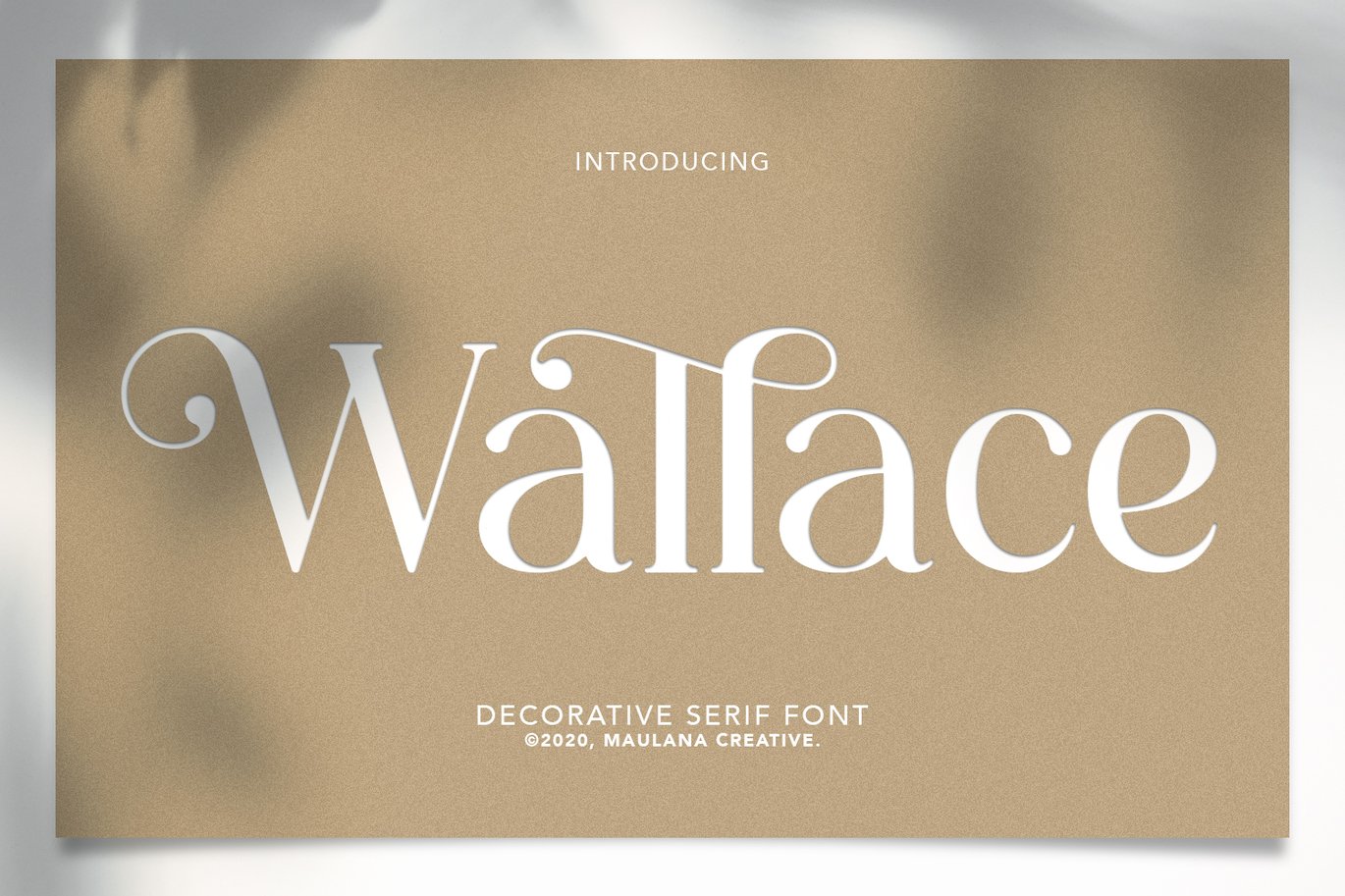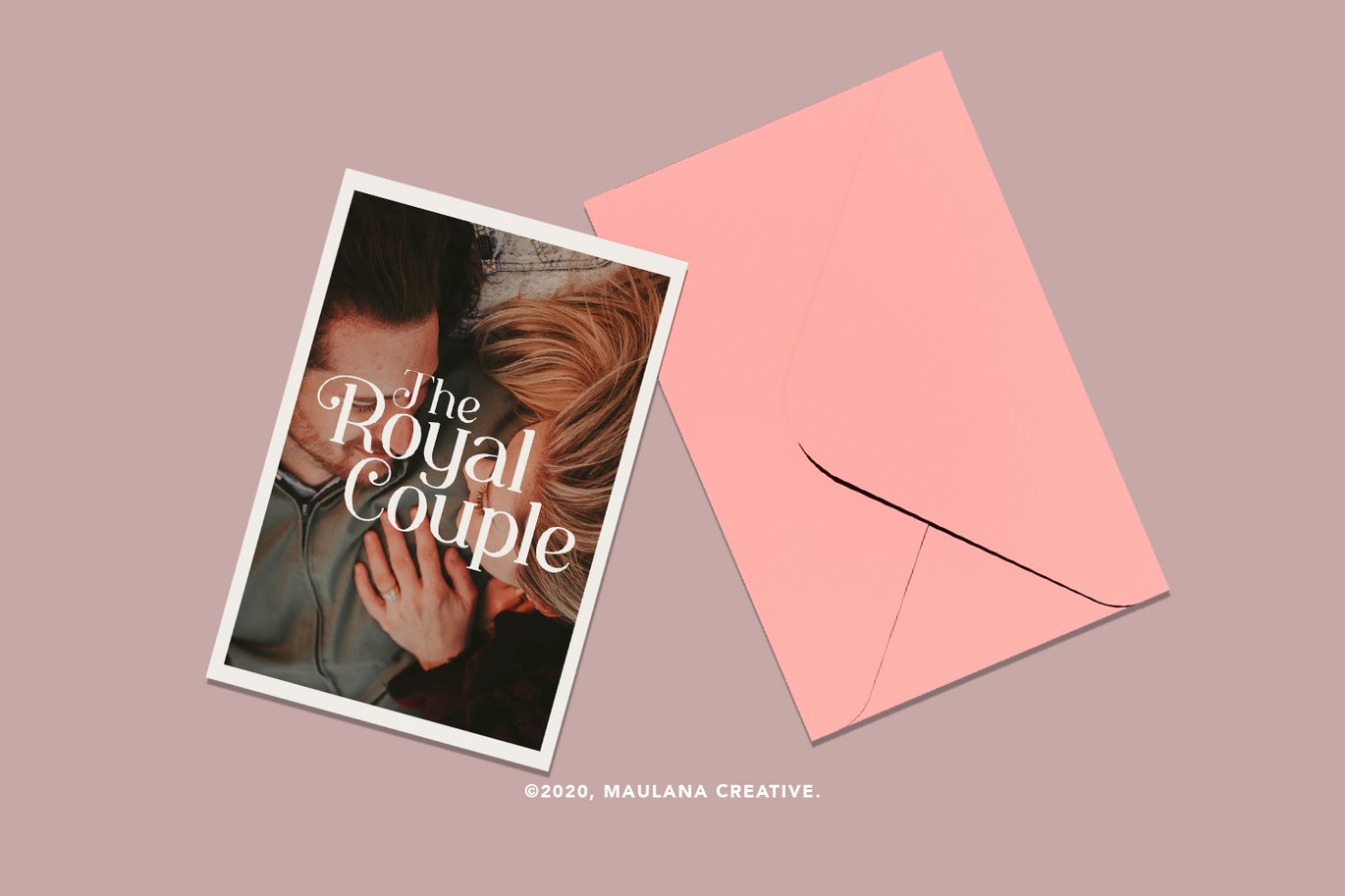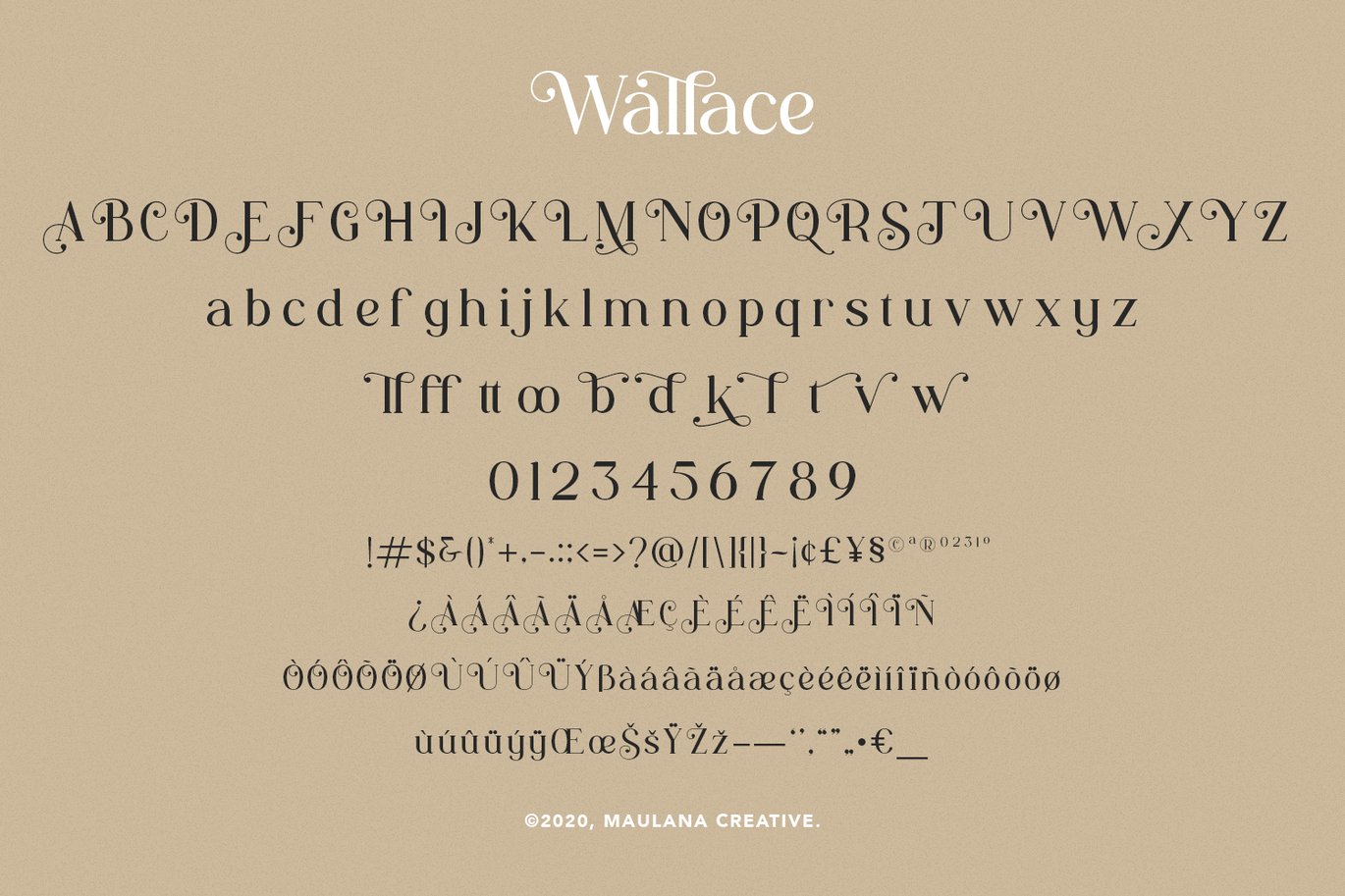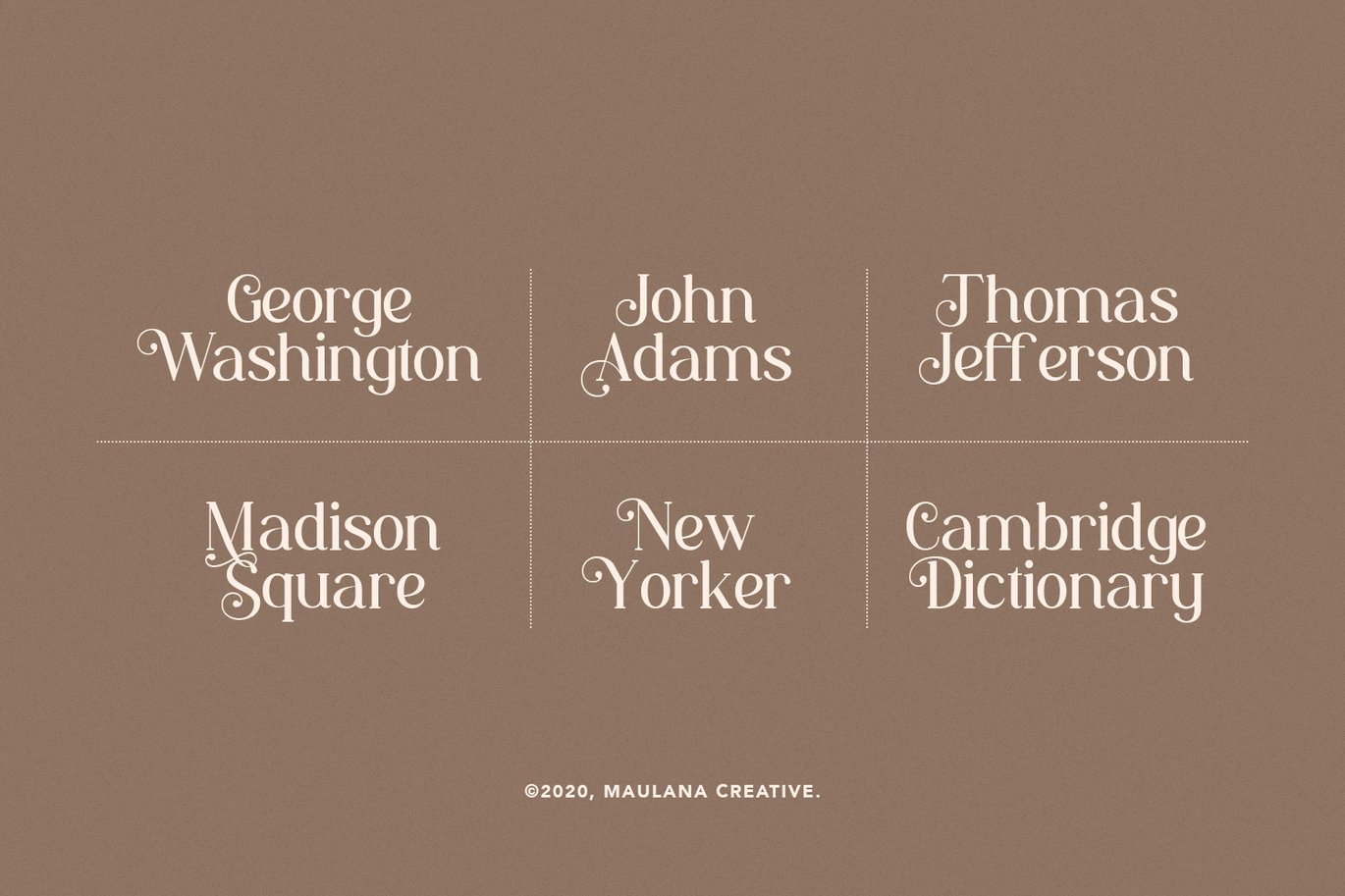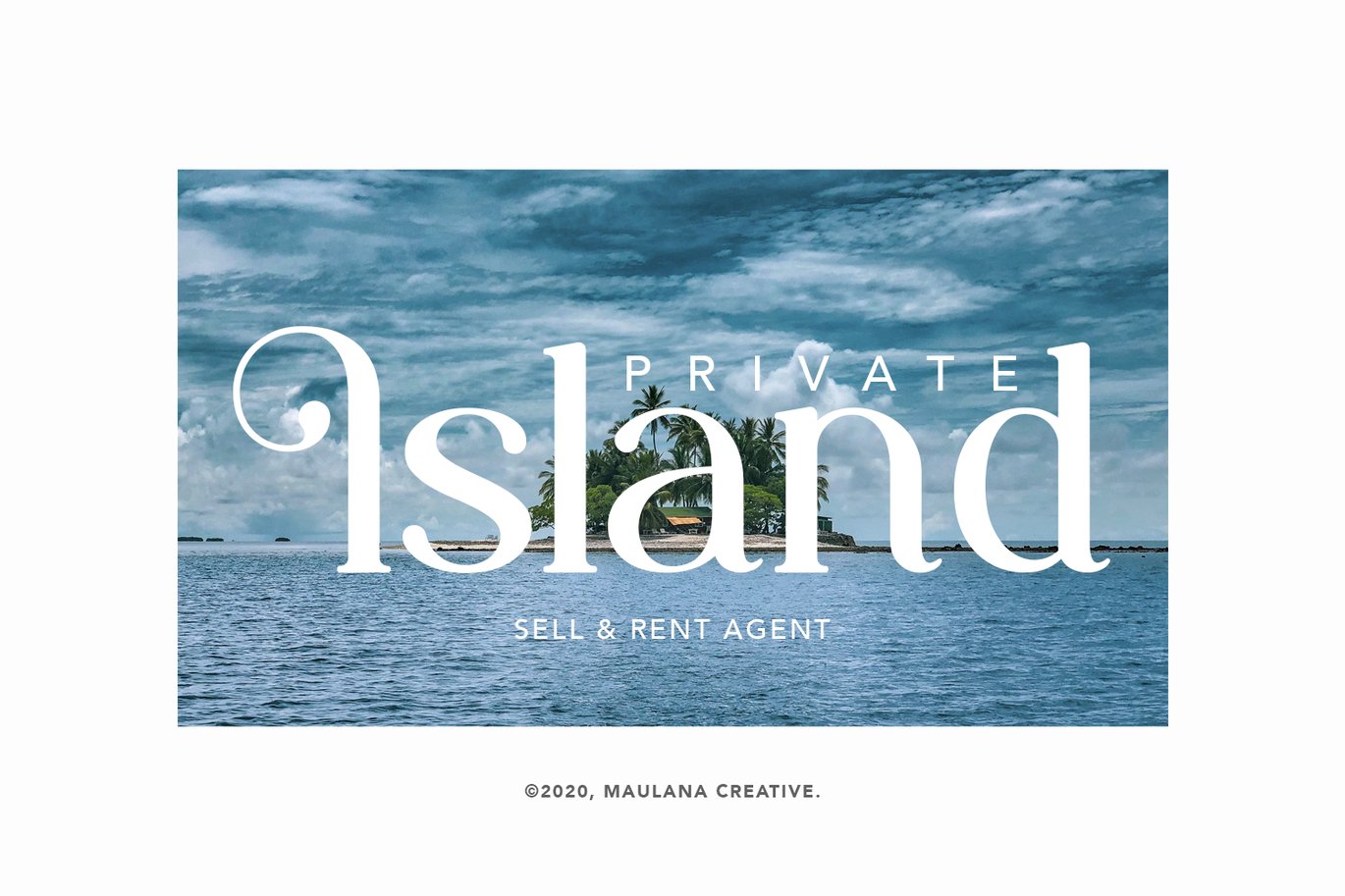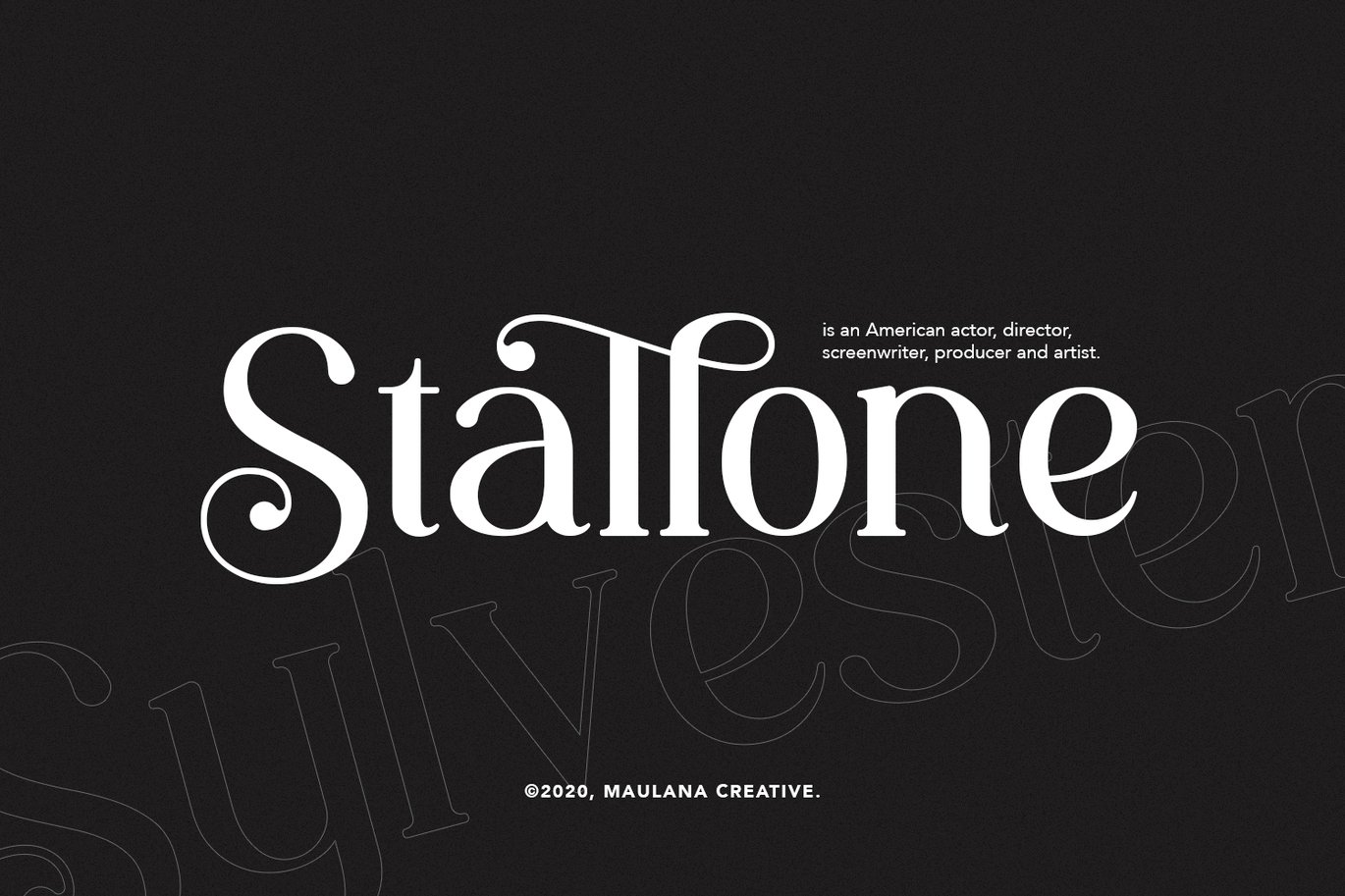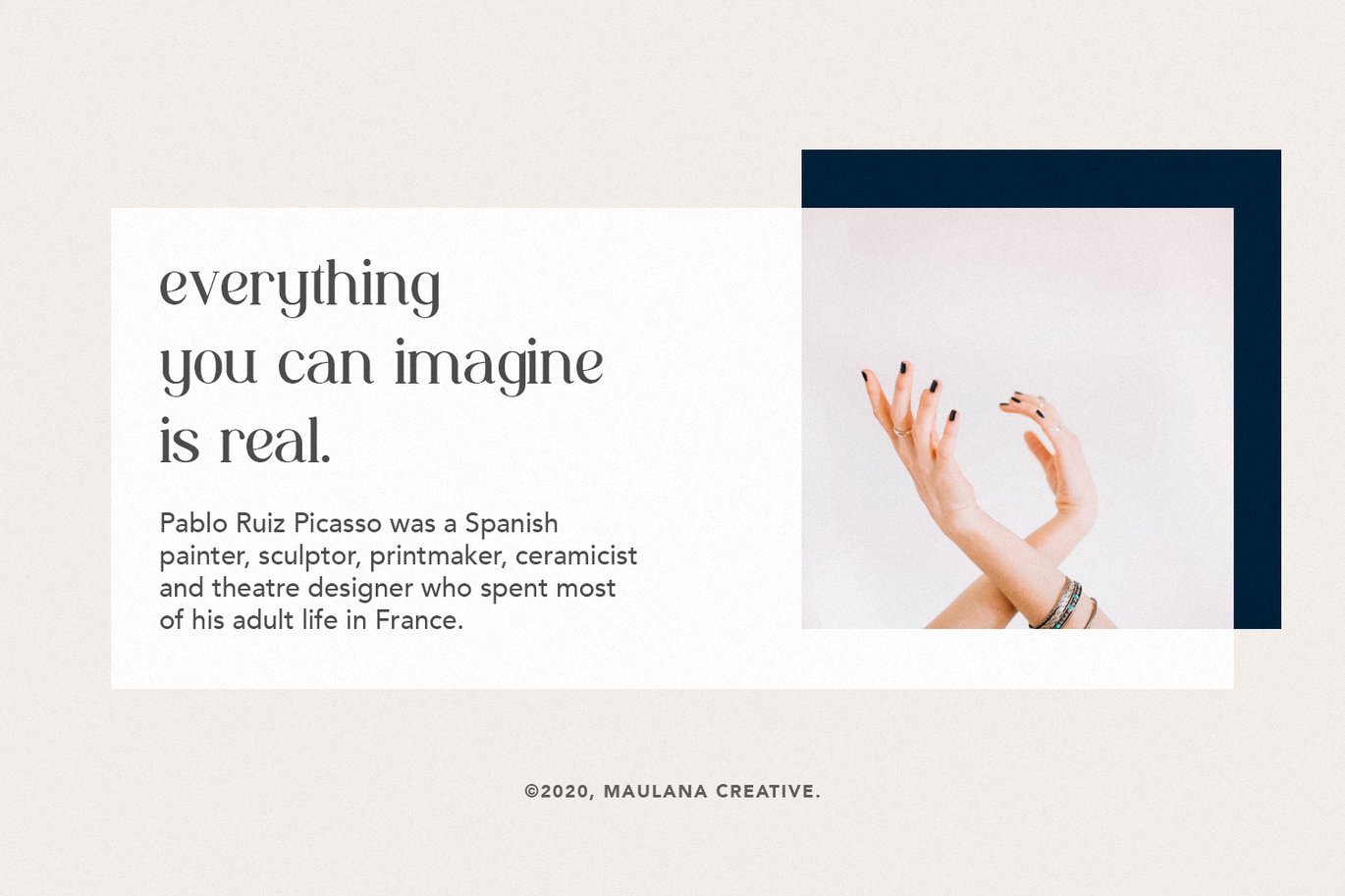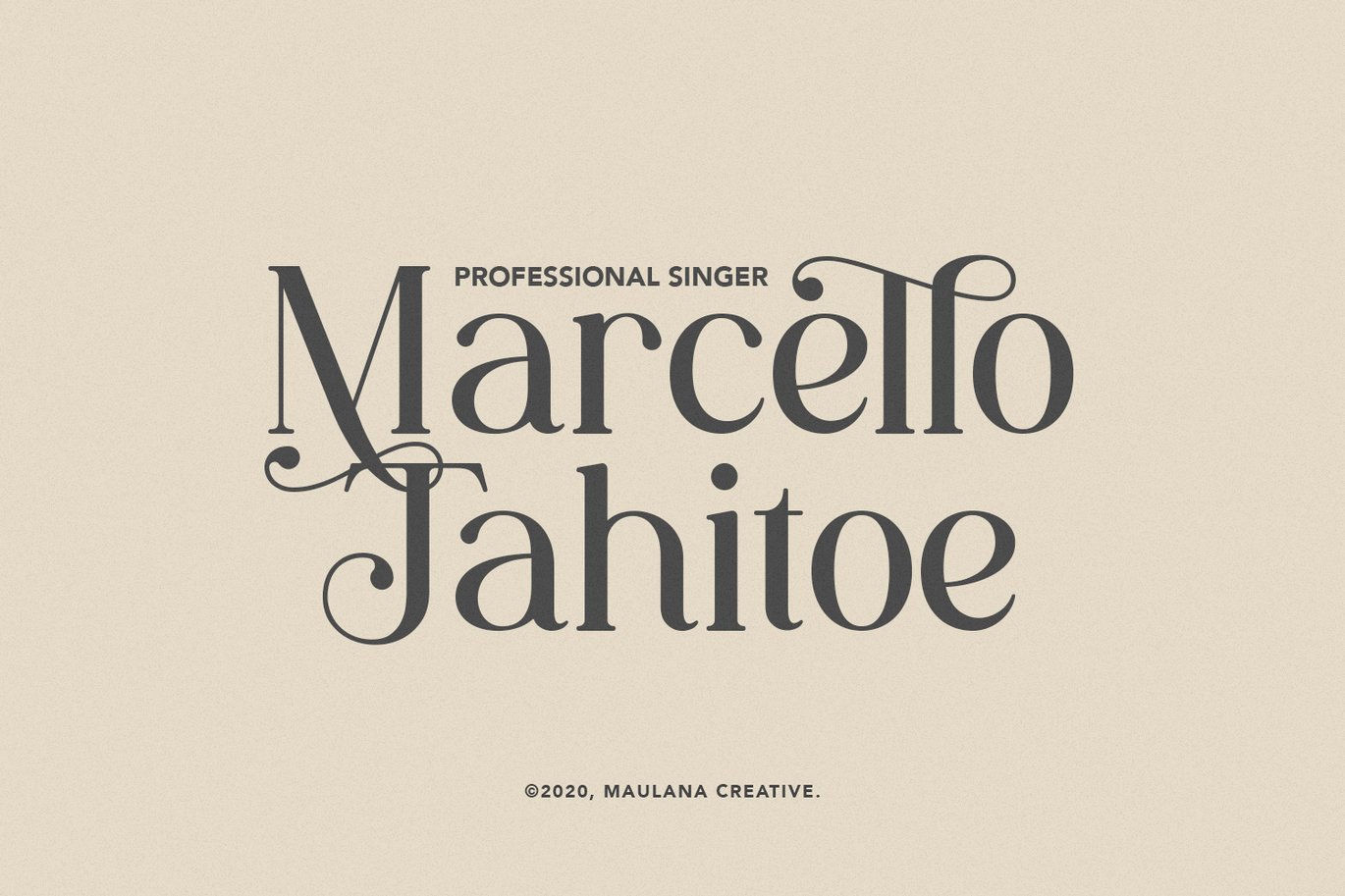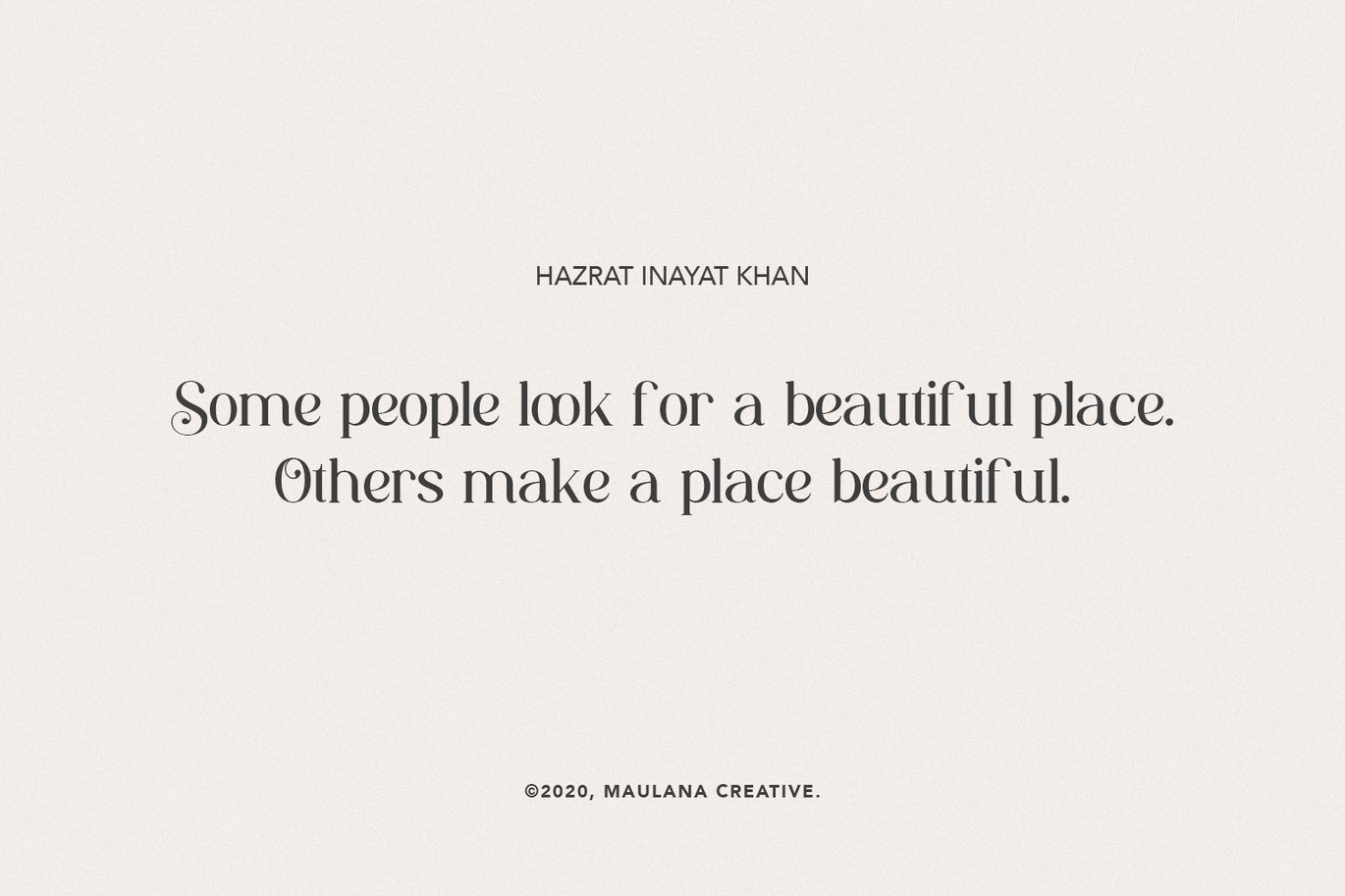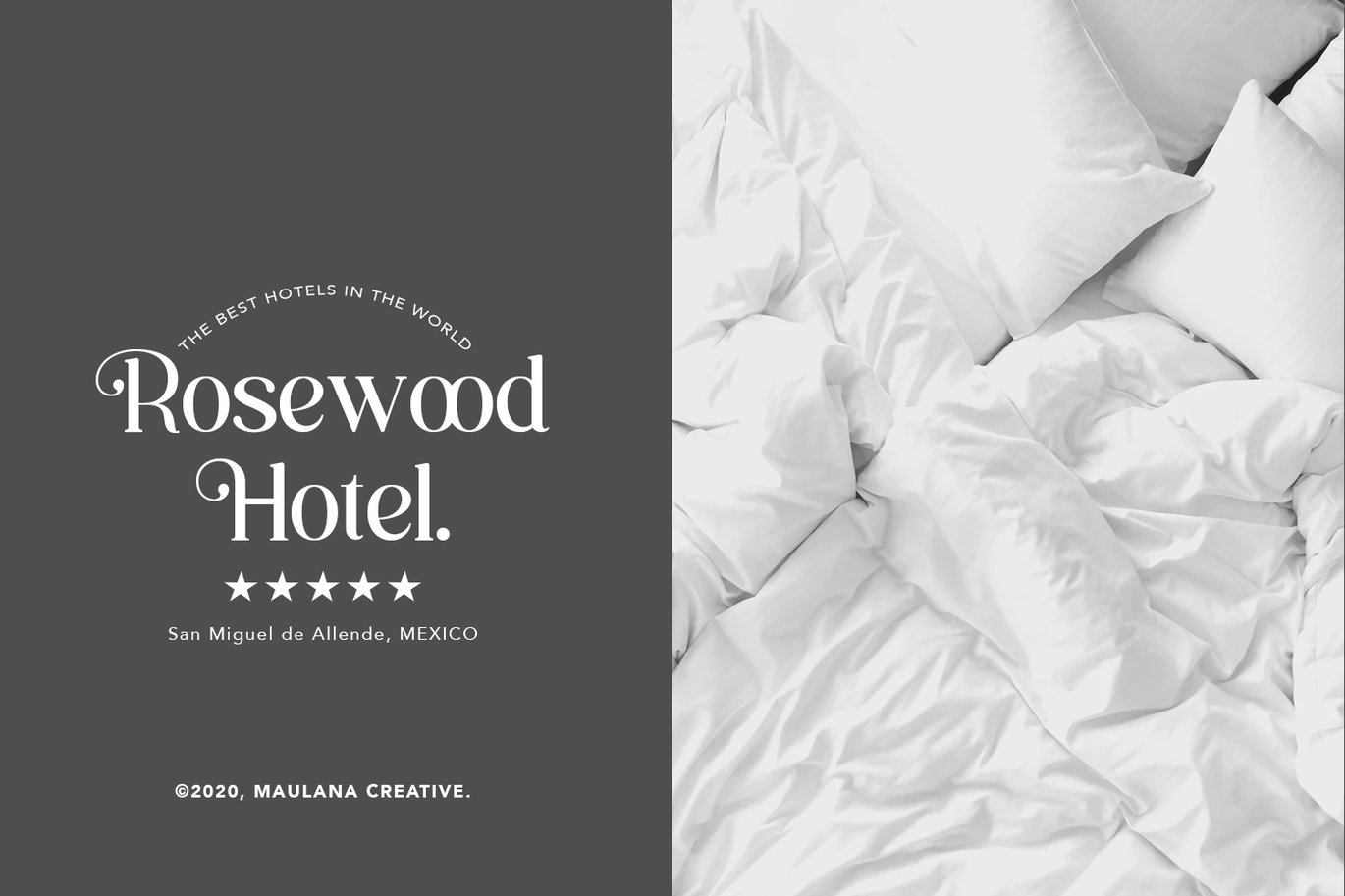
Wallace – Decorative Serif Font
Unique, playful and versatile serif family with four ligatures and seven alternates that you can combine to get curves and beautiful shapes just in seconds.
This font is suitable for use in many design forms, for example magazines, postcards, logos, DIY Projects, invitation card, quotes, vintage look design, old classic ,60s, 70s, 80s era, wedding projects and much more. We recommend using Adobe Illustrator or Photoshop.